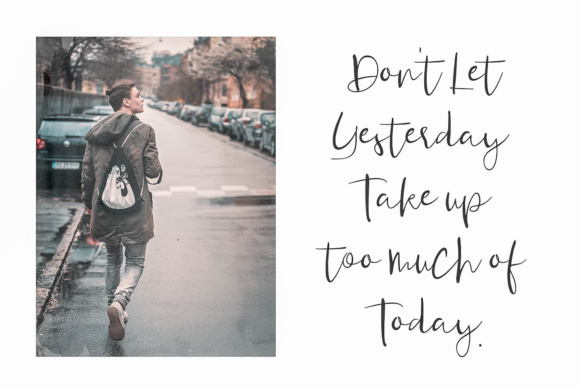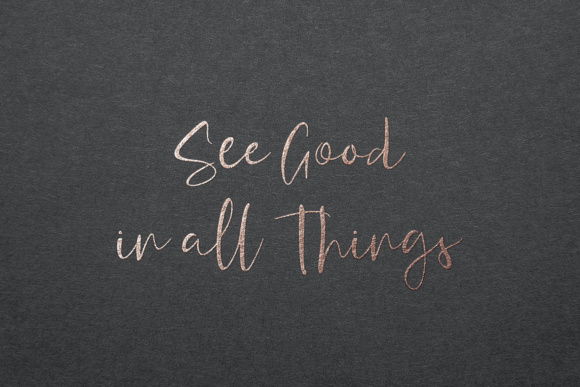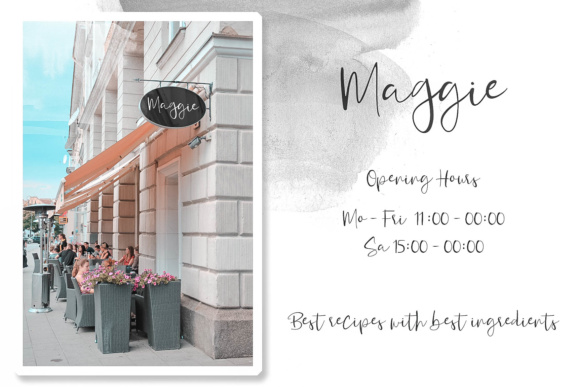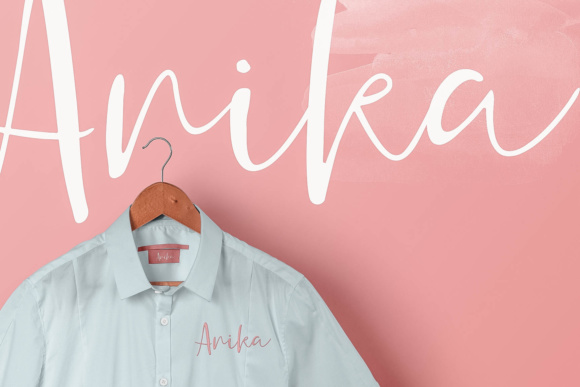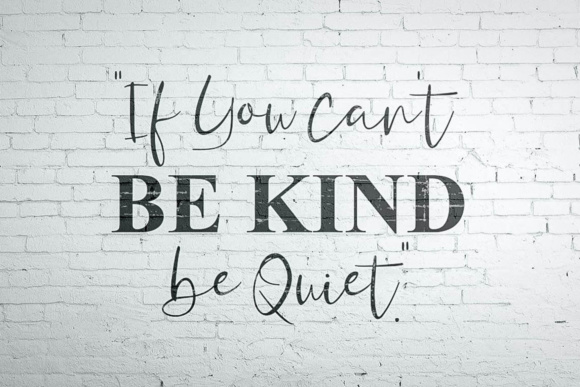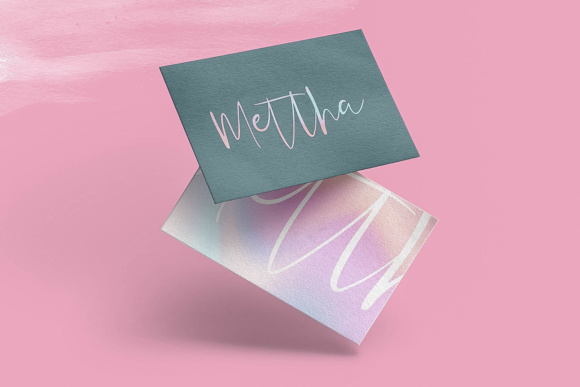
Introduction to Rossetta Font
Have you ever found yourself stuck in a creative rut, desperate for a design solution that exudes elegance and sophistication? I know I have. It was during one such moment that I stumbled upon the Rossetta Font – a beautiful and feminine script font that has since become a staple in my design arsenal.
What sets the Rossetta Font apart is its versatility and high quality, making it an excellent resource for designers looking to add a touch of sophistication to their creative projects. Whether you’re working on invitationals, print work, or fashion-oriented digital designs, this font is sure to impress. And the best part? It’s available for free download with a transparent background, making it a valuable addition to any designer’s toolkit.
With its delicate lines and refined curves, the Rossetta Font is a game-changer for designers who want to create high-quality designs that stand out from the crowd. In this article, we’ll dive deeper into the world of Rossetta Font and explore its many uses and benefits.
Key Features of Rossetta Font
- Designed with precision and attention to detail, ensuring crisp and clear typography at high resolutions (up to 300 DPI).
- Includes a comprehensive character set, covering a wide range of languages and alphabets, making it a versatile design resource.
- Supports various font sizes, from small captions to large headings, making it suitable for various design applications.
Honest Review: Rossetta Font
I recently had the chance to explore the Rossetta Font, and I must say, it’s been a game-changer for my design projects. This font is a fantastic addition to any design resource collection.
- ✨ High-quality design: The Rossetta Font boasts a sleek and sophisticated design that adds a touch of elegance to any creative project.
- ✨ Transparent background: The font’s transparent background makes it easy to use with any background image or color, giving designers more flexibility.
- ⚠️ Limited font weights: The Rossetta Font only comes in a few weights, which may not be suitable for designers who require a wider range of font weights.
- ⚠️ Not suitable for small text: Due to its elegant design, the font may not be the best choice for small text or body copy.
Overall, I’m impressed with the Rossetta Font. Its high-quality design and transparent background make it a valuable addition to any design resource. While it may have some limitations, it’s definitely worth checking out, especially for designers working on creative projects that require a touch of sophistication.
Rossetta Font
Tips for Getting the Most Out of Rossetta Font
Use the Rossetta Font in conjunction with a transparent background to create a cohesive and stylish design. Experiment with different font sizes and styles to add visual interest to your project.
The Rossetta Font is ideal for creative projects such as branding, packaging, and advertising. Its high-quality design and transparent background make it perfect for use in digital and print media.
Alternatives to Rossetta Font
Great Vibes is a beautiful, handwritten font perfect for creative projects that require a personal touch. It’s ideal for use in design resources like wedding invitations, quotes, or social media graphics. This font is a great alternative to Rossetta Font when you need a more elegant and sophisticated look.
Similar to Rossetta Font, Great Vibes has a high-quality, transparent background that makes it easy to use on any design. However, Great Vibes has a more refined and delicate feel, making it suitable for a wider range of design applications.